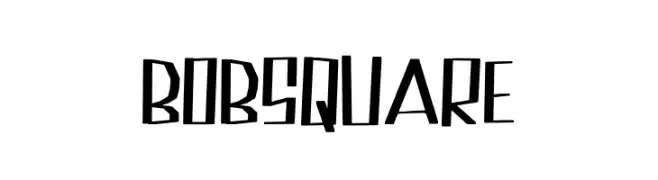
A bold, geometric font with a modern and clean aesthetic.
A decorative set of intricate, kaleidoscope-inspired geometric symbols.
Ornamental geometric display font with kaleidoscopic motifs.
Intricate, kaleidoscope-like symbols with geometric patterns.
A decorative collection of geometric and abstract symbols with a kaleidoscopic effect.
A bold, geometric font with Art Deco influences, featuring tall, narrow characters.
A bold, graffiti-inspired font with dynamic and expressive characters.
A bold serif font with a three-dimensional outlined style.
A modern, geometric font with rounded edges and uniform width.
Ornamental floral dingbat set with folk art influence.
A modern, geometric sans-serif font with a clean and balanced design.
A modern, flowing font with connected, elongated characters and rounded edges.
A modern, geometric font with interconnected lines and a cohesive design.
A bold, modern font with continuous lines and geometric structure.
A bold, interconnected font with a modern and playful design.
A sleek, futuristic font with geometric lines and a modern aesthetic.
A sleek, ultra-thin font with a modern, minimalist design.
A futuristic, geometric font with elongated, narrow letterforms and sharp angles.
An elegant and decorative font with classic and modern elements, featuring ornamental serifs and playful swashes.
A decorative icon font themed around cameras and film equipment.
A modern, geometric font with rounded edges and uniform character width.
A decorative font with martial arts figures representing each character.
A modern, sleek font with elongated, narrow characters and medium contrast.
A modern, unicase font with elongated, narrow characters and consistent stroke width.
A modern, geometric unicase font with wide spacing and smooth, rounded strokes.
A modern, elongated font with narrow characters and rounded edges.
A modern, elongated font with rounded edges and a vintage touch.
A modern, wide font with rounded edges and consistent character spacing.
A bold, geometric font with strong, angular lines and a blocky appearance.